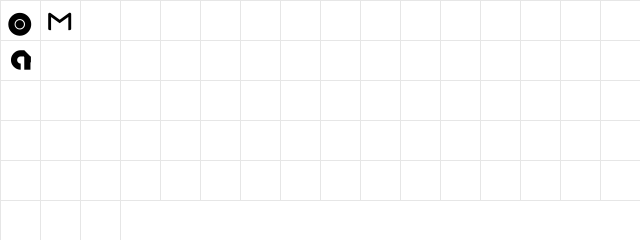
Type Icons Color Regular
Design Context for Type Icons Color Typeface
Type Icons Color is a composed and adaptable typeface that performs quietly and consistently across a wide range of design contexts.